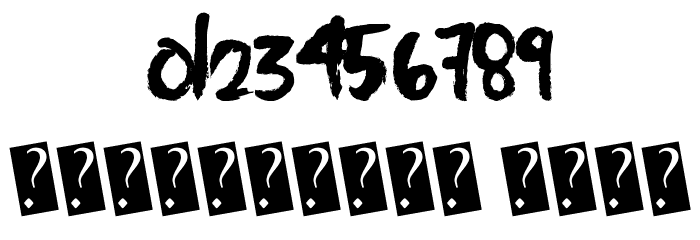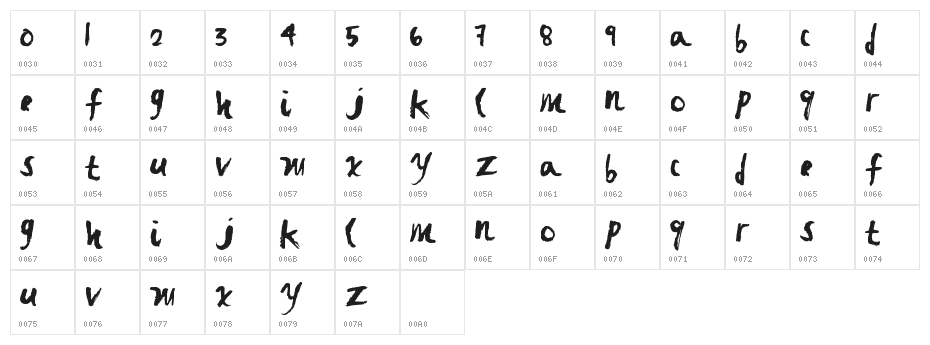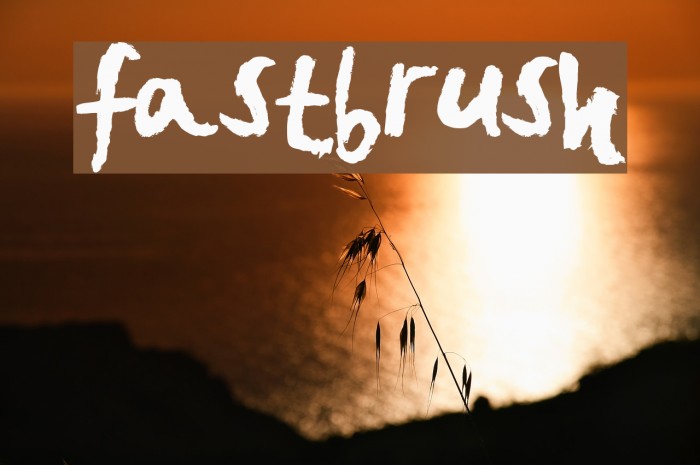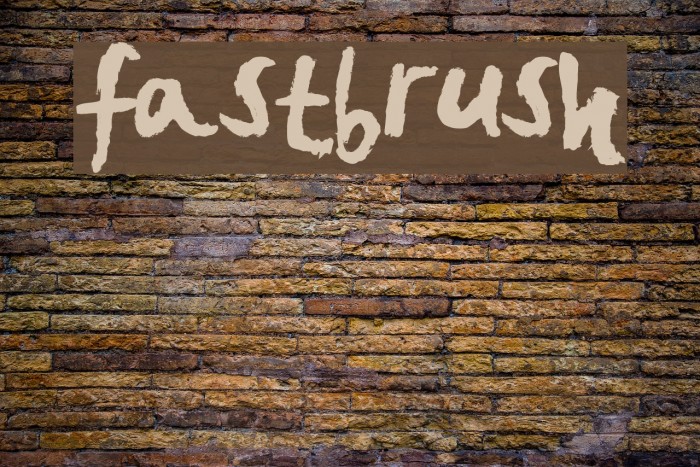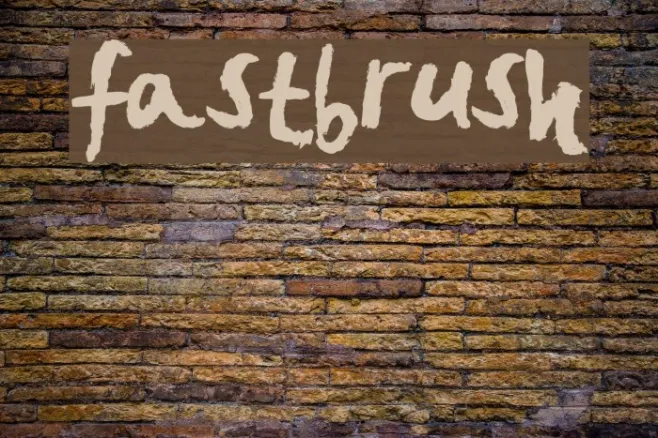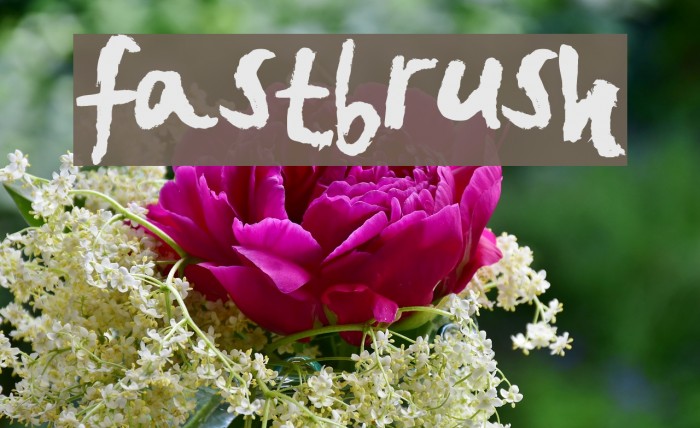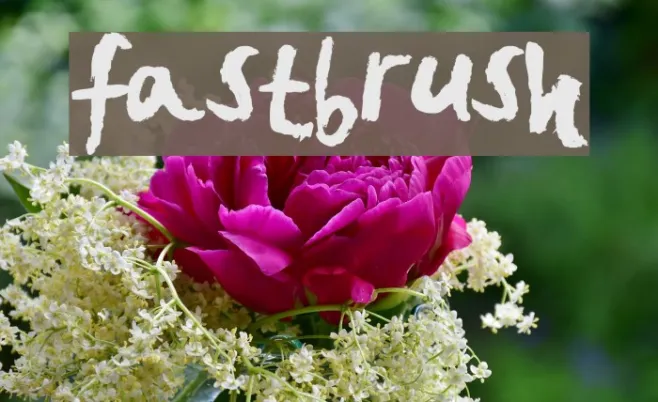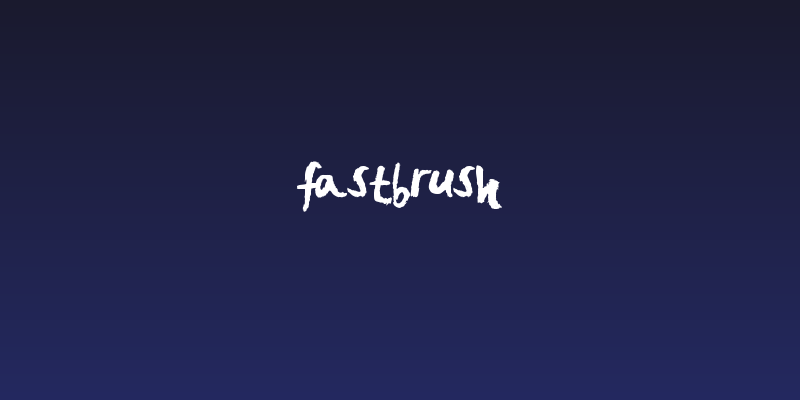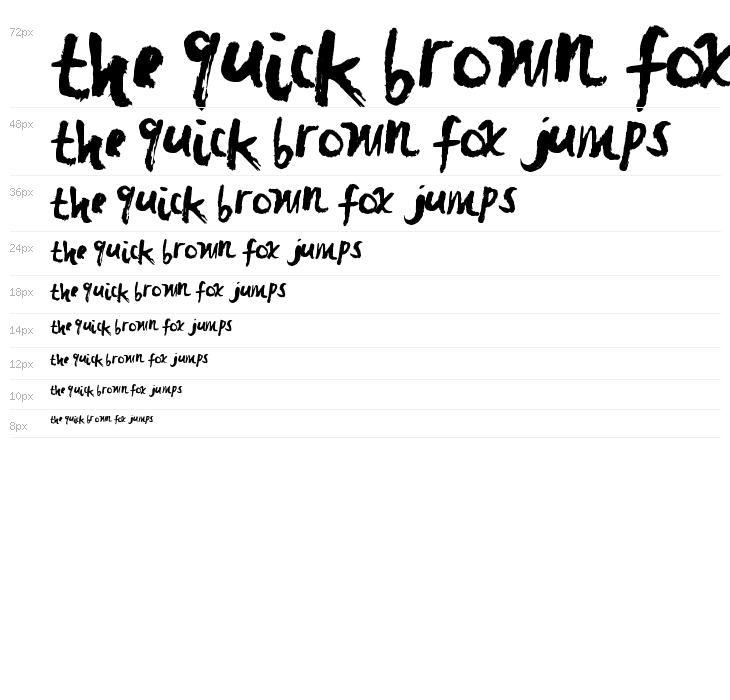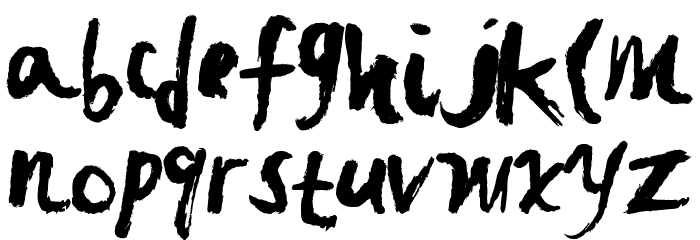
FastBrush Font
FastBrush Description
This font exudes a dynamic and energetic style, reminiscent of bold brush strokes. Each character is crafted with a sense of motion and fluidity, giving it a hand-painted appearance. The letters vary in thickness, with some strokes appearing more pronounced, adding to the overall expressive nature. The irregular edges and slight slant of the characters contribute to its informal and artistic vibe. This font is perfect for projects that require a personal touch, as it captures the essence of handwritten text with a modern twist.
| Proposed Projects | Ideal for artistic projects, branding, posters, and invitations that seek a personal and creative touch. |